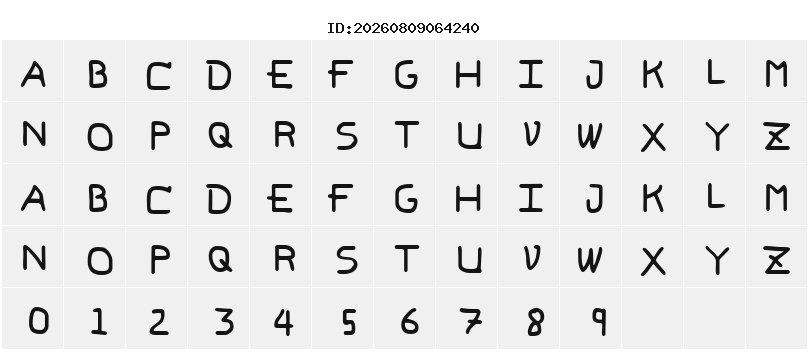
Pf_vvbf6 Preview
About Pf_vvbf6.ttf
Pf_vvbf6.ttf is a modern, elegant sans-serif font designed for ultimate readability and visual harmony. Perfect for branding, headlines, web design, and print materials.